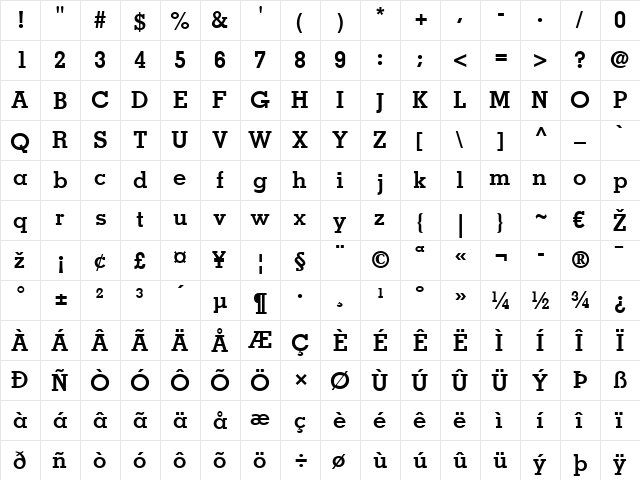
Memphis LT Medium Bold
Design Context for Memphis LT Medium Typeface
Memphis LT Medium takes a measured approach to typography — its balanced proportions and neutral character make it a reliable workhorse for both digital and print work. Its bold stroke weight gives it real presence on the page.